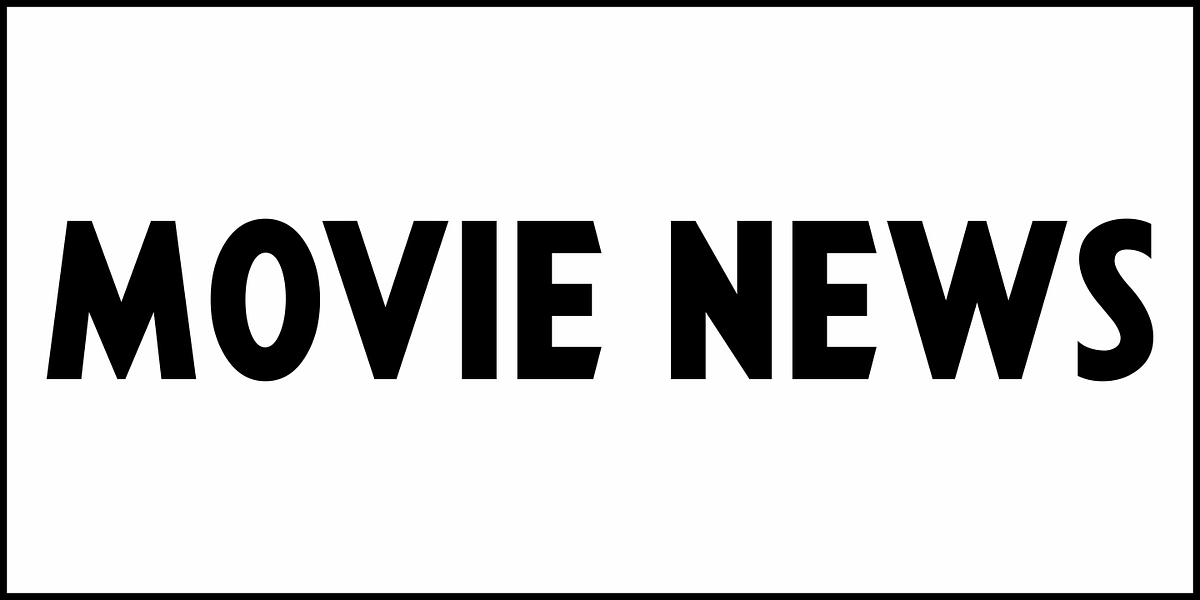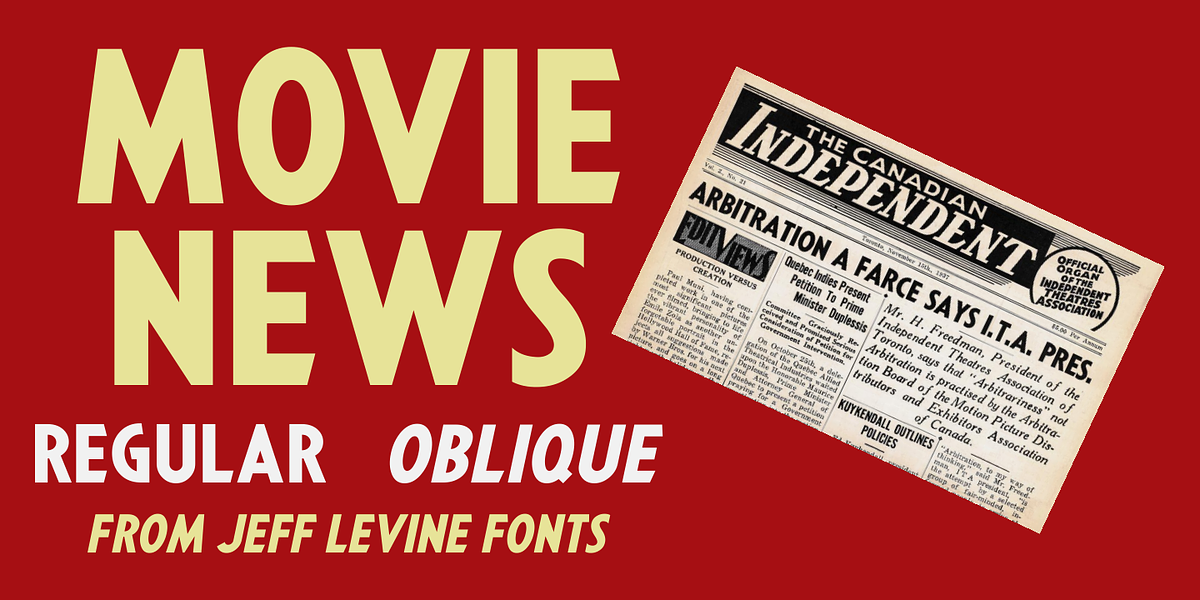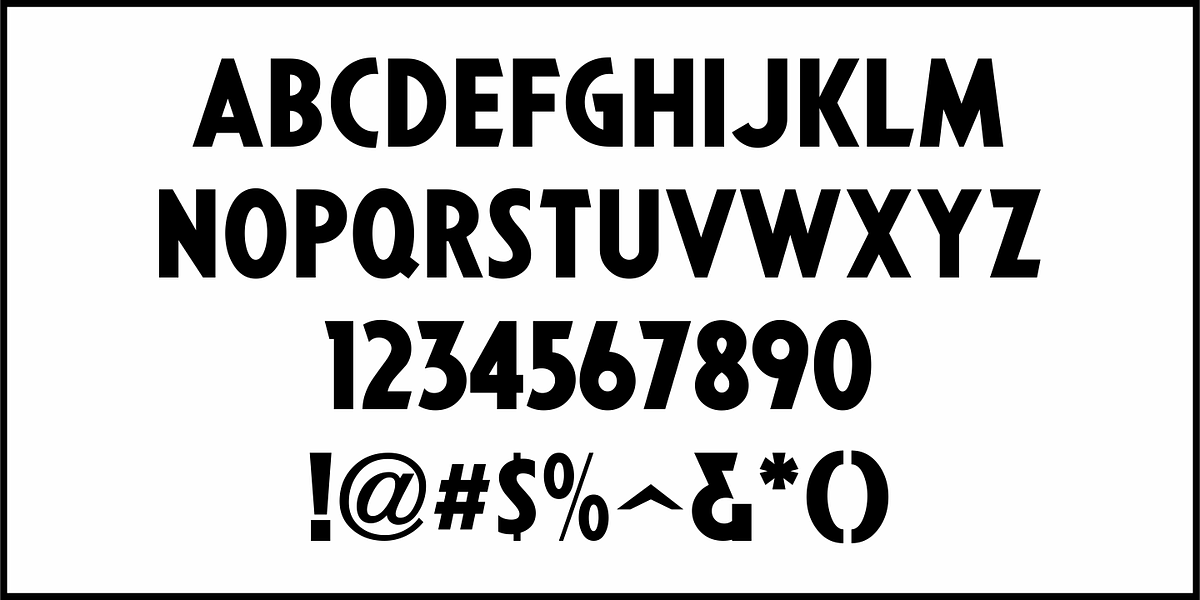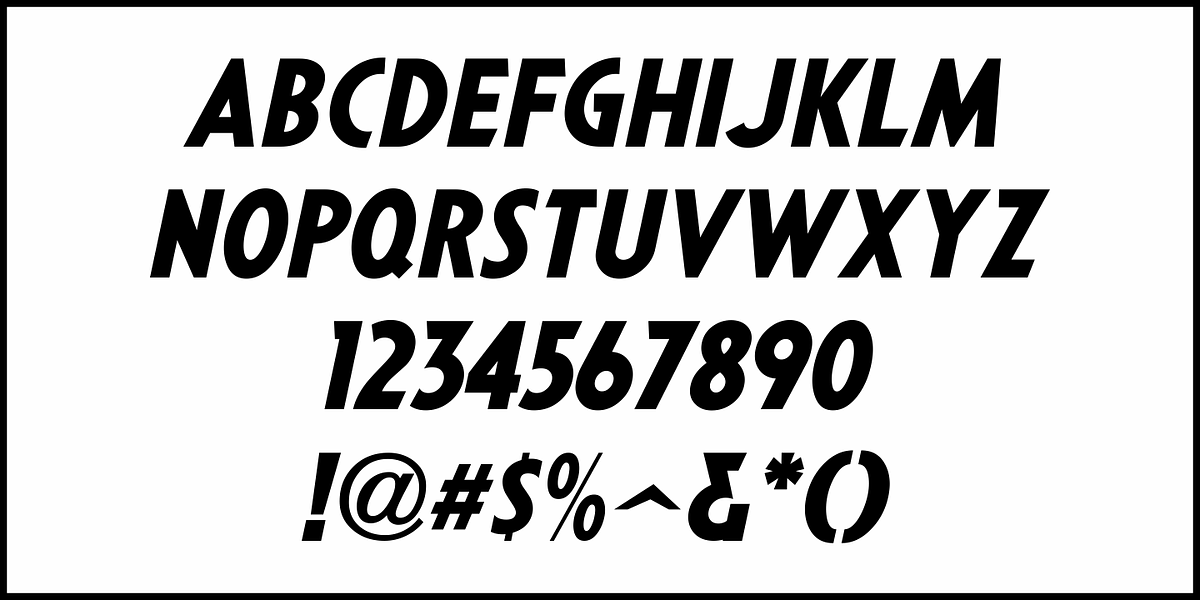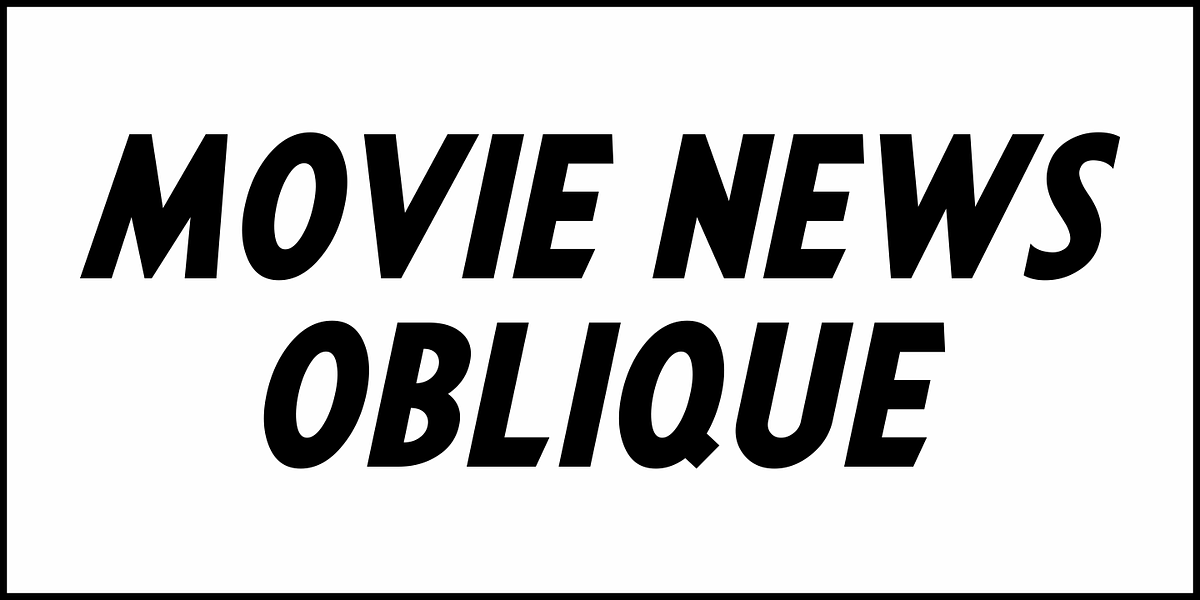
Movie News JNL
Based on various headlines found within 1937 issues of The Canadian Independent, a trade paper for the film industry, Movie News JNL is available in both regular and oblique versions.